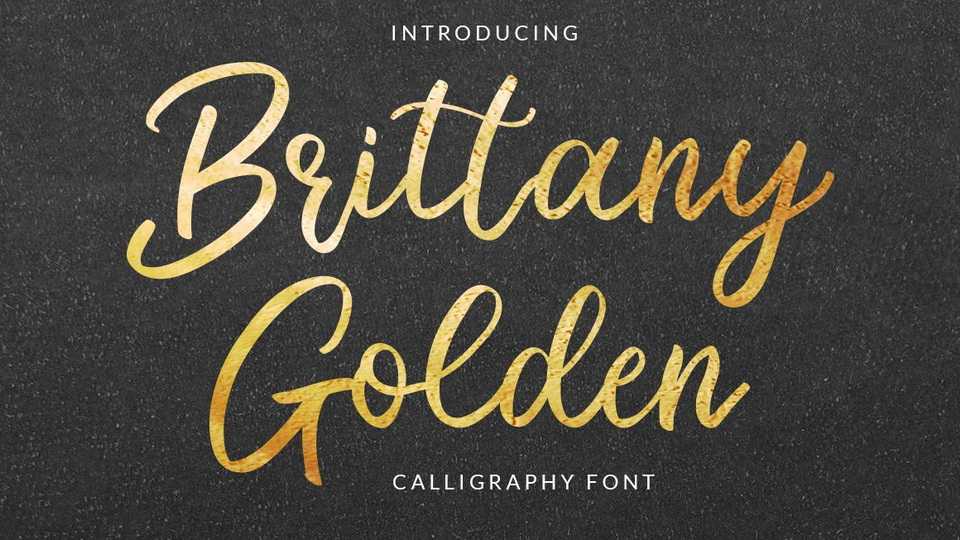
Download Brittany Golden font, a modern and sweet calligraphy typeface with beautiful and cool curves. Brittany Golden font is suitable for t-shirt designs, logos, magazines, quotes, fashion, watermarks, invitations.